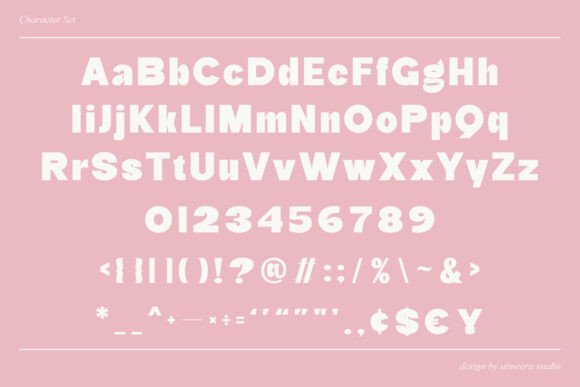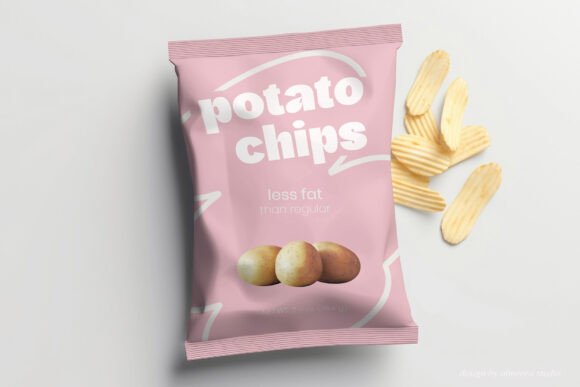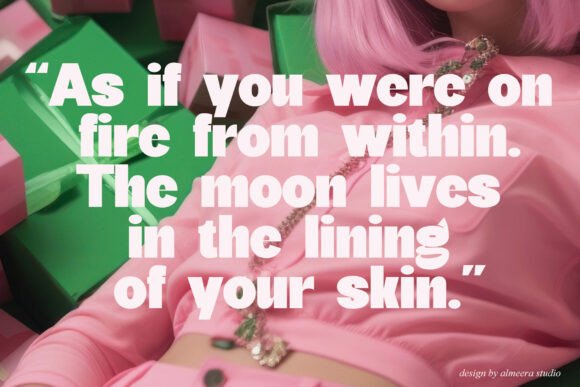
Introduction to Lagande Font Font
Fonts play a crucial role in design, and the Lagande Font font is a typeface that brings both character and versatility to any project. Whether you’re working on a branding project, a website, or a print design, the Lagande Font font offers a unique style that can elevate your work.
| 👤 Author | Almeera Studio |
Introducing Lagande – Modern Sans Serif Font.
Lagande is a display and simple sans serif font, This type of font is very suitable for your various needs such as branding projects, logos, social media posts, advertisements, labels, product packaging, photography, wedding designs, watermarks, invitation product designs, stationery, and any project .
Key Features of Lagande Font Font
Why Choose Lagande Font Font?
The Lagande Font font is more than just a typeface – it’s a design tool that helps you communicate your message with style and clarity. Its unique character set and versatile design make it suitable for a wide range of applications, from elegant invitations to bold headlines.
With its carefully crafted letterforms and balanced proportions, the Lagande Font font ensures readability and visual appeal across all mediums.
What makes Lagande Font font special?
The Lagande Font font stands out with its unique design, exceptional readability, and versatility across various design applications.